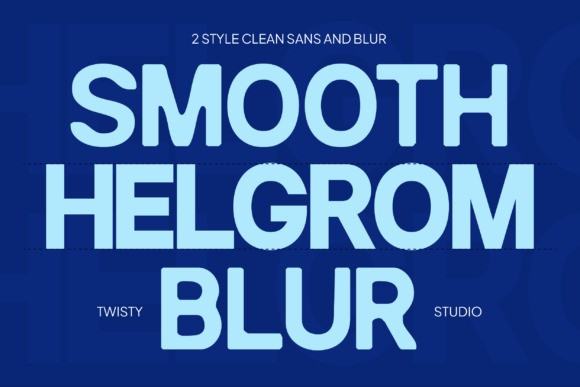
Helgrom Font
Helgrom Font is a modern duo font featuring a perfect combination of clean and blur sans serif styles, designed to create striking visual contrast and contemporary appeal. Combining a sharp, highly readable sans serif with a stylish blurred counterpart, Helgrom offers a unique typographic experience that feels modern, experimental, and effortlessly eye-catching. This versatile duo allows designers to create layered compositions, dynamic branding, and innovative visual identities with ease.
The clean version delivers clarity, precision, and professionalism, while the blur version adds depth, motion, and a futuristic atmosphere. Together, they create a powerful design tool for projects that demand creativity and modern aesthetics.